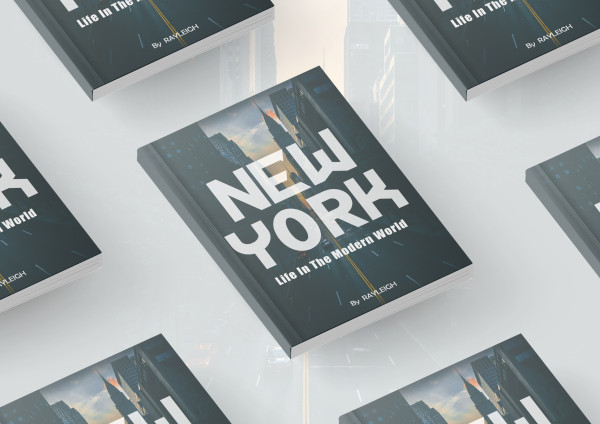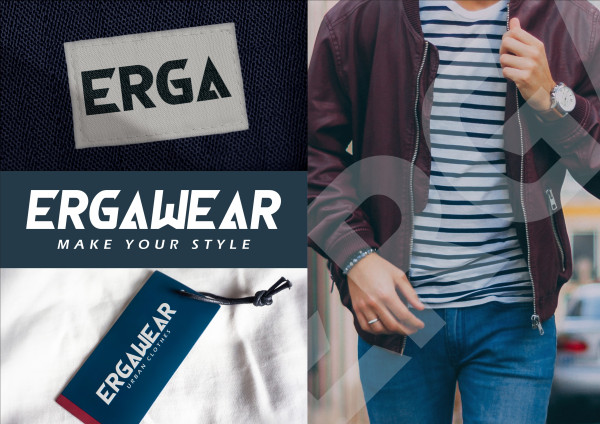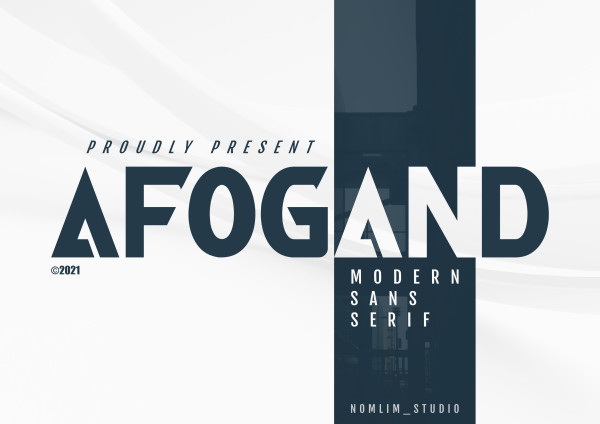
Afogand Font
Afogand Font is a modern sans-serif font that effortlessly complements an extensive range of projects. Incorporate it into your creative concepts and witness how it elevates them to new heights, grabbing attention and leaving a lasting impression.